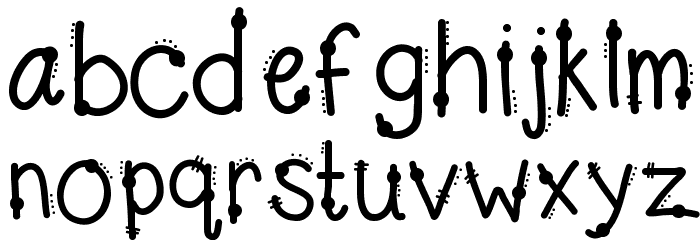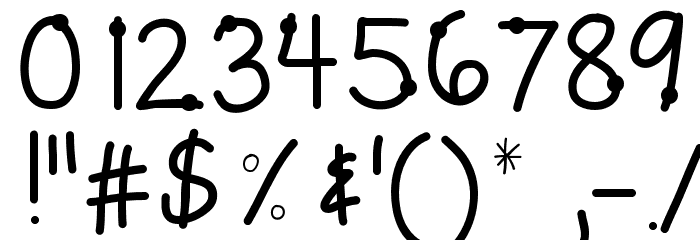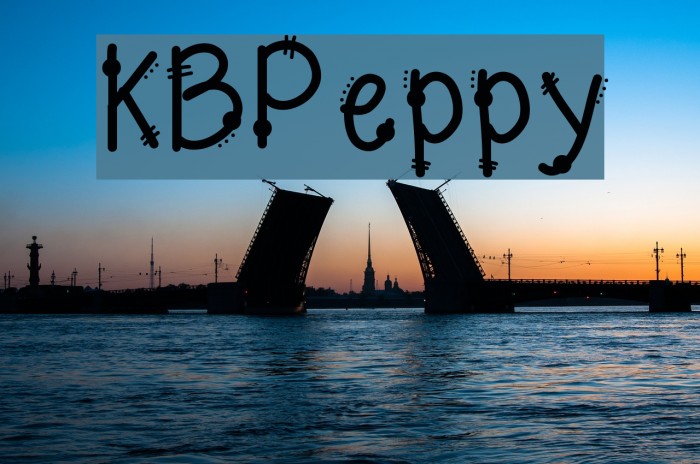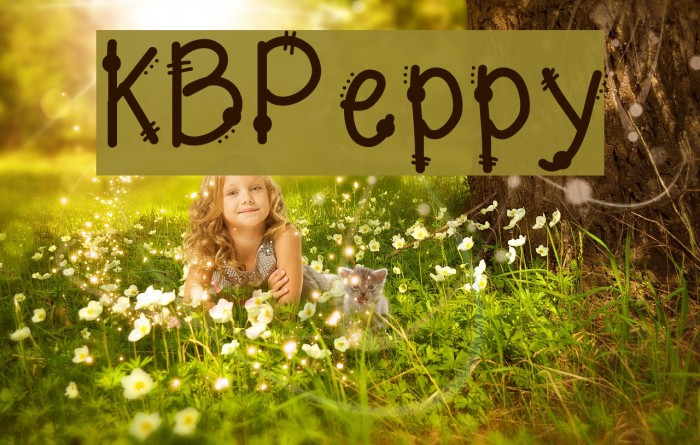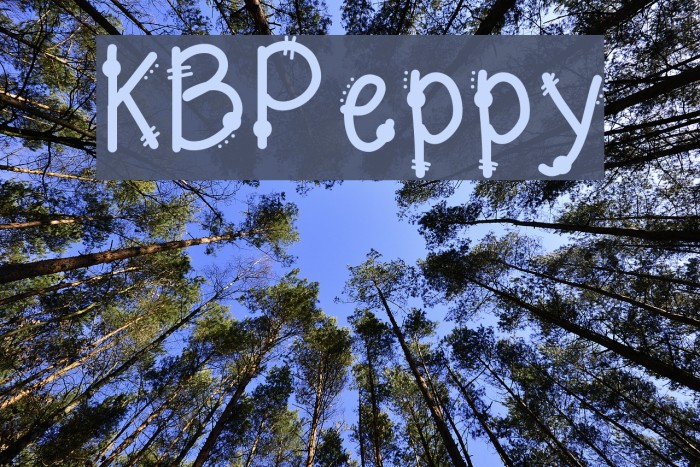
KBPeppy Font
This playful and whimsical font features a hand-drawn style with irregular strokes and quirky details. Each character is adorned with small dots and unique embellishments, giving it a lively and energetic appearance. The letters are slightly uneven, adding to the casual and informal feel. The font maintains a consistent line weight throughout, with rounded edges and a friendly demeanor. It captures a sense of fun and creativity, making it ideal for projects that require a personal touch. The numbers and special characters are crafted with the same playful spirit, ensuring a cohesive look across all text elements.
A playful, hand-drawn font with quirky details and a lively appearance.
- Proposed Projects: Ideal for children's books, greeting cards, playful branding, and creative posters.
- Use Case: Headlines, Logos, Creative projects